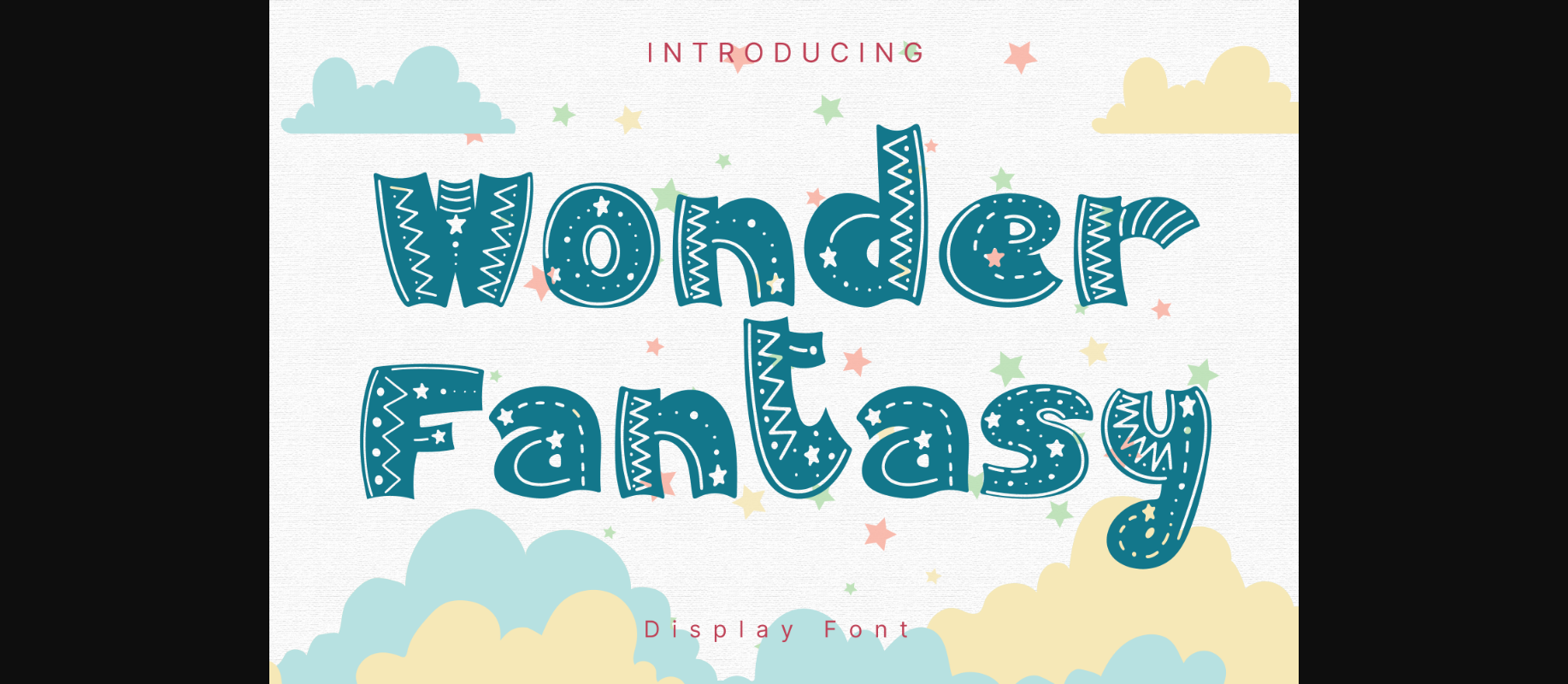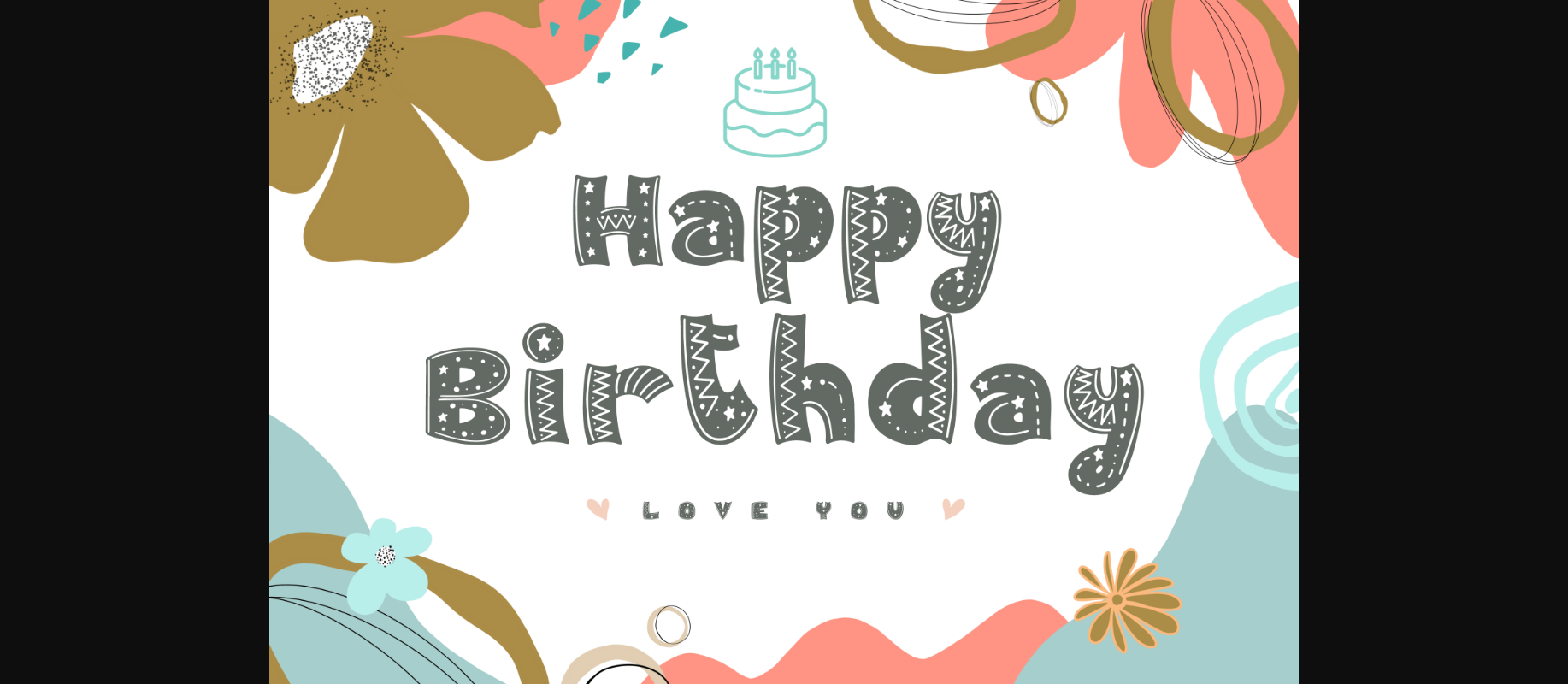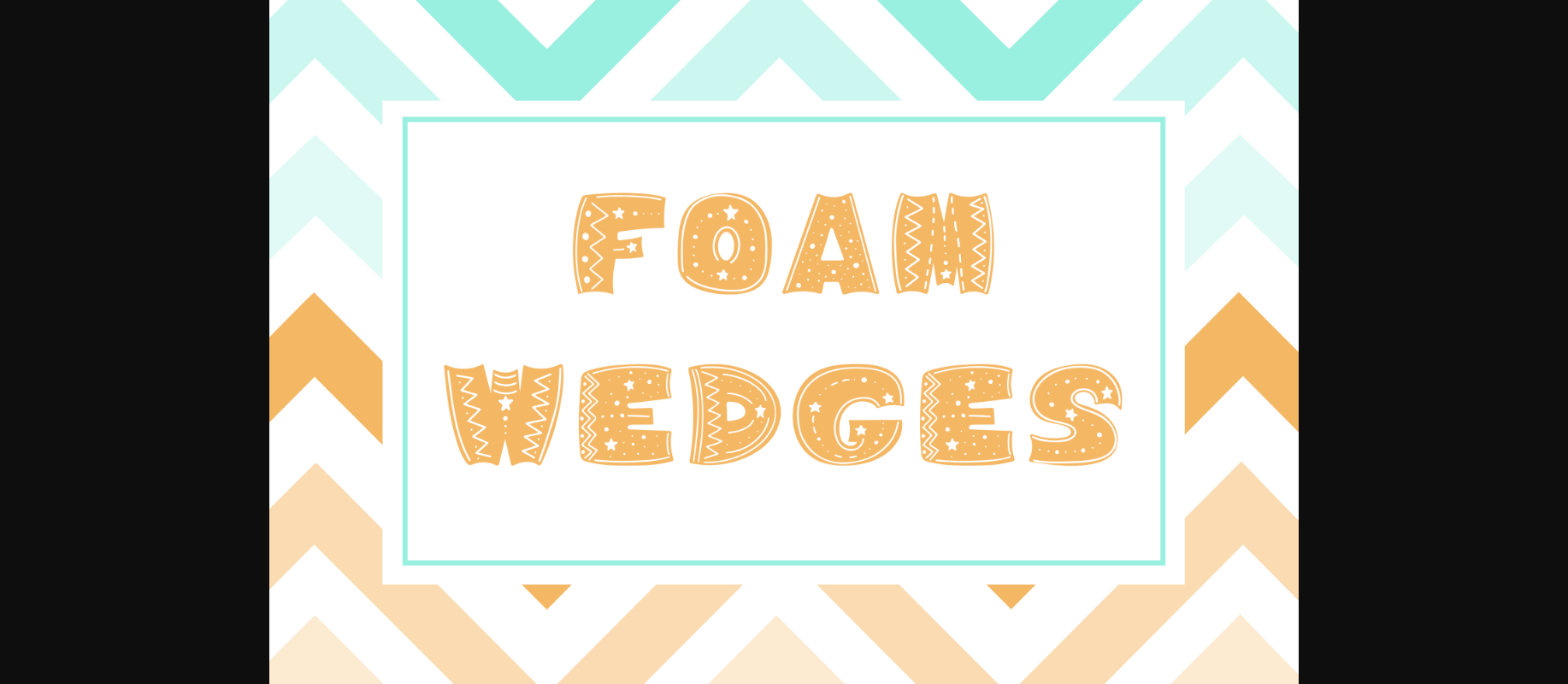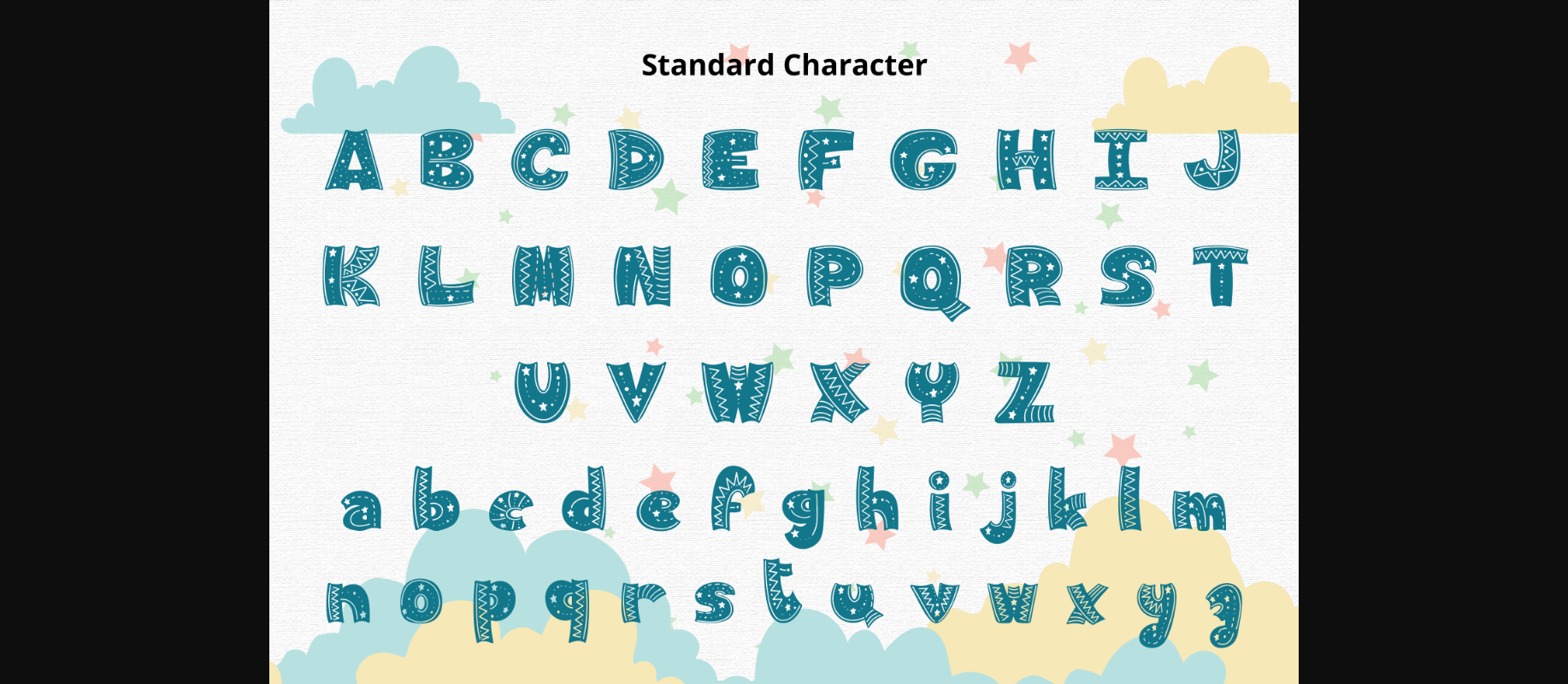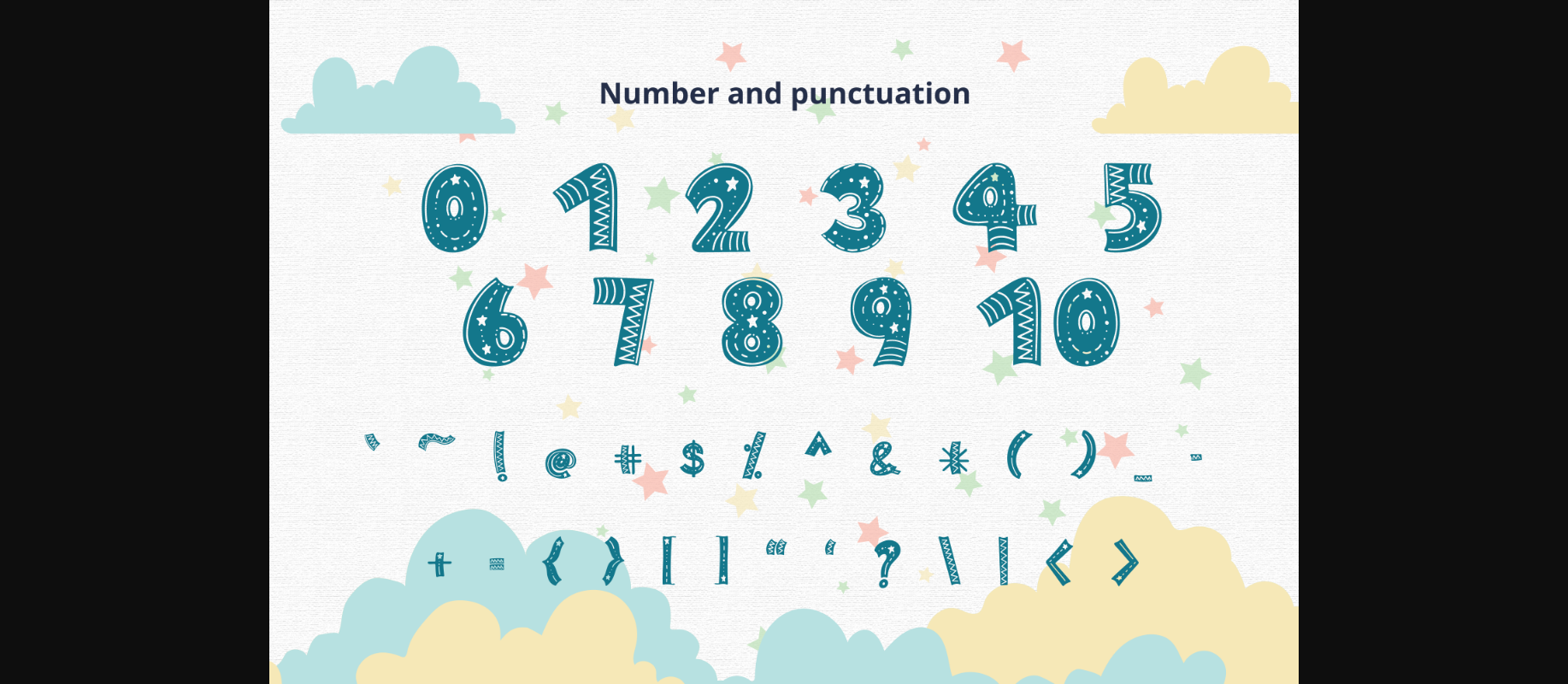
Wonder Fantasy Font
About Wonder Fantasy Font
Wonder Fantasy is an adorable decorative font. It can easily be matched to an incredibly large set of projects, so add it to your creative ideas and notice how it makes them stand out!